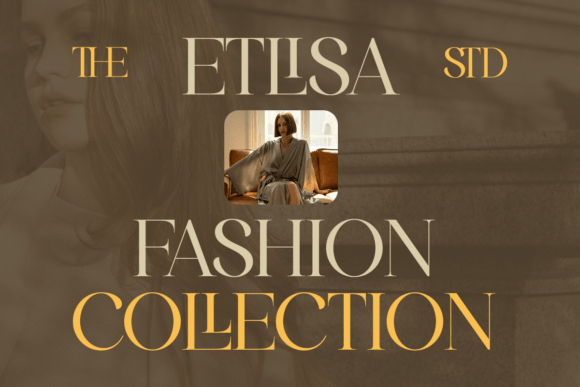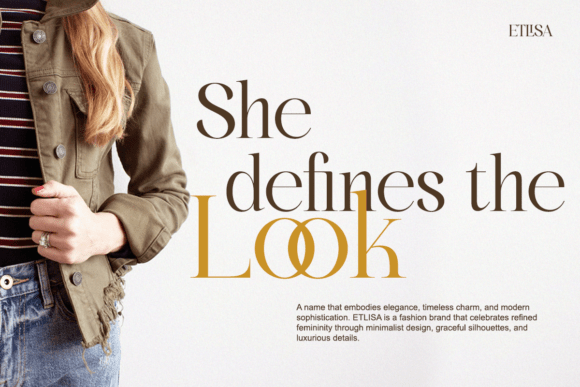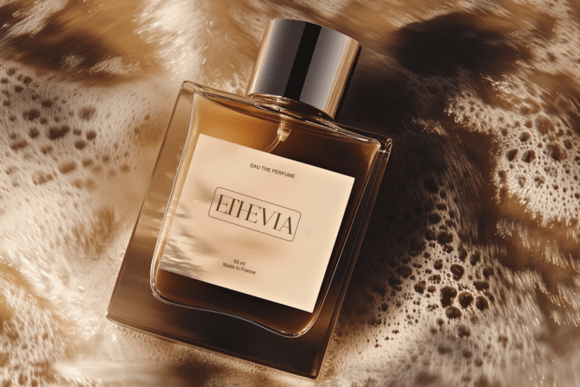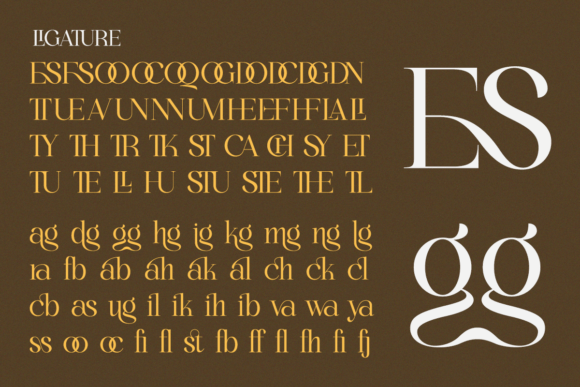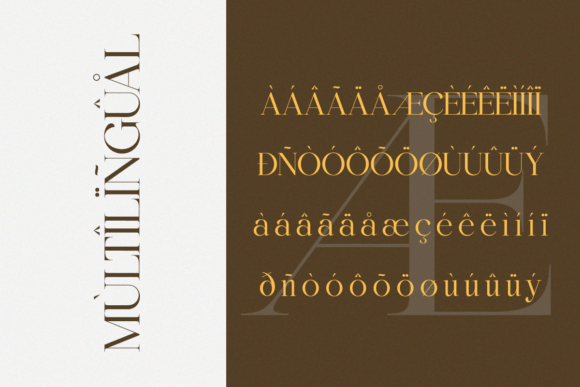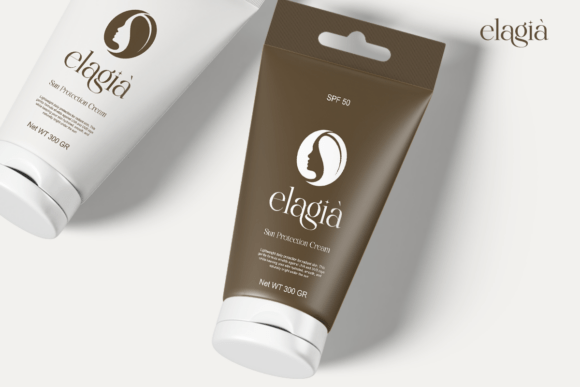
Introducing Bigalfia Font: Elevate Your Editorial Designs to New Heights of Sophistication
In the world of typography, a new elegant serif font has emerged to revolutionize the way we approach editorial design. Meet Bigalfia, a masterpiece that harmonizes classic proportions with contemporary flair, taking your visual creations to new heights of sophistication. This stunning typeface is designed to breathe life into every word, making it an ideal choice for high-end editorial work, luxury packaging, and sophisticated web layouts.
The Art of Balance: High-Contrast Strokes and Unique Terminals
Bigalfia is a masterclass in balance, featuring high-contrast strokes that create a sense of elegance and refinement. The unique, curvaceous terminals add a touch of sophistication, setting this font apart from others in its class. The result is a typeface that exudes trust and timelessness, making it perfect for heritage branding or upscale editorial work.
Stylish Alternates: Elevate Your Headlines with Elongated Descenders
What sets Bigalfia apart is its extensive collection of stylish alternates, particularly the elongated ā€œgā€ and ā€œfā€ descenders. These unique features create a rhythmic, interlocking visual effect in headlines, making your editorial designs truly stand out. Imagine the impact of a headline that flows effortlessly, with each letter complementing the next to create a bespoke piece of art.
Crafted for High-End Editorial Work and Luxury Packaging
Bigalfia serif is tailor-made for high-fashion magazines, luxury packaging, and sophisticated web layouts where typography is the primary focal point. Its refined aesthetic communicates trust and timelessness, making it an ideal candidate for heritage branding or upscale editorial work. Whether you’re designing a logo, branding materials, beauty packaging, or skincare labels, Bigalfia is the perfect choice.
Unlock the Full Potential of Bigalfia with Built-in Ligatures
By utilizing the built-in ligatures, you can transform simple text into a bespoke piece of art that feels curated and high-end. This feature allows you to take your designs to the next level, creating a unique visual identity that sets you apart from the competition. Whether you’re a designer, crafter, or typography enthusiast, Bigalfia offers endless possibilities for creative expression.
Use Cases: Where Bigalfia Shines
• Logos and Branding: Create a lasting impression with Bigalfia’s elegant, high-end aesthetic.
• Beauty Packaging and Skincare Labels: Elevate your product design with a sophisticated, luxurious feel.
• E-commerce and Web Layouts: Enhance your online presence with a refined, upscale typography.
• Heritage Branding: Convey trust and timelessness with Bigalfia’s classic, yet modern design.
• Editorial Design: Take your magazine and newspaper designs to new heights with Bigalfia’s elegant serif.
Font Name Bigalfia Font
Author Qweera Studio
In conclusion, Bigalfia font is a game-changer for designers and crafters seeking to elevate their editorial designs to new heights of sophistication. With its elegant serif, high-contrast strokes, and unique terminals, this typeface is perfect for high-end editorial work, luxury packaging, and sophisticated web layouts. By utilizing its built-in ligatures and stylish alternates, you can unlock the full potential of Bigalfia and create bespoke pieces of art that feel curated and high-end. Experience the power of Bigalfia and take your designs to the next level.